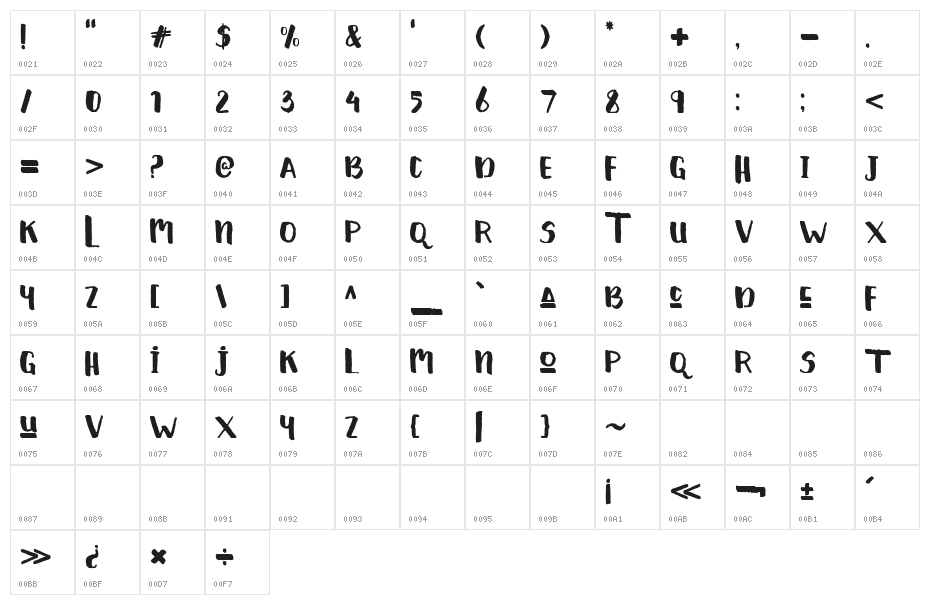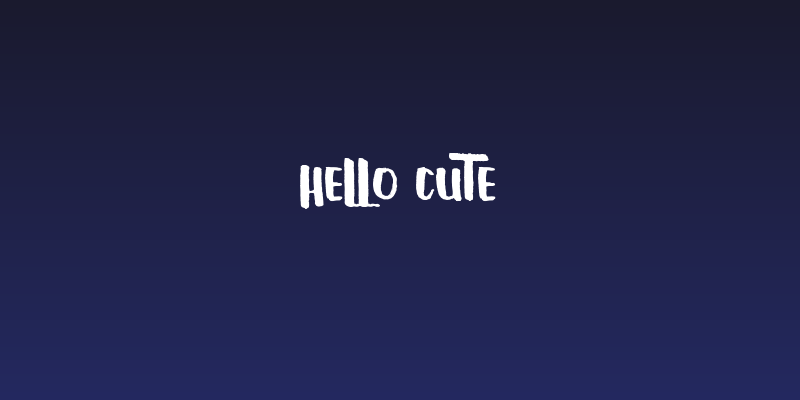
Hello Cute Font
Hello Cute Description
This font features a playful and bold handwritten style, characterized by its thick strokes and uneven edges, giving it a casual and artistic feel. The letters are slightly irregular, adding to the charm and uniqueness of the design. The uppercase and lowercase letters maintain a consistent style, with rounded forms and a slightly condensed appearance. The numbers and special characters follow the same playful aesthetic, making the font versatile for various creative projects. Its boldness ensures readability while maintaining a fun and informal tone.
| Proposed Projects | Ideal for children's books, playful branding, greeting cards, and creative posters. |